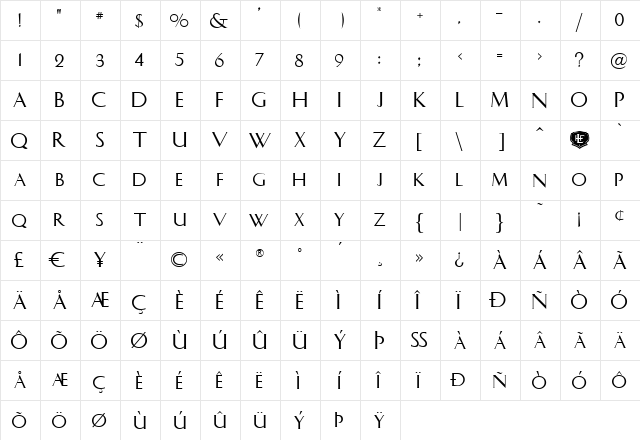
LHF Charlotte Regular
Design Context for LHF Charlotte Typeface
LHF Charlotte takes a measured approach to typography — its balanced proportions and neutral character make it a reliable workhorse for both digital and print work.
Pro Tip: Use LHF Charlotte in both headline and body roles to test its range before committing to a single application.